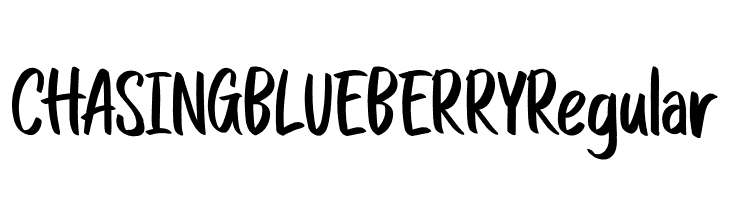
A playful and elegant script font with a hand-drawn appearance.
A bold, playful handwritten font with dynamic strokes and a casual style.
A playful handwritten font with smooth curves and a friendly appearance.
A playful, handwritten script font with smooth, flowing characters.
A playful, hand-drawn font with rounded, casual characters.
A playful and whimsical font with bold, flowing strokes and a lively appearance.
A playful, bold handwritten font with a casual and energetic style.